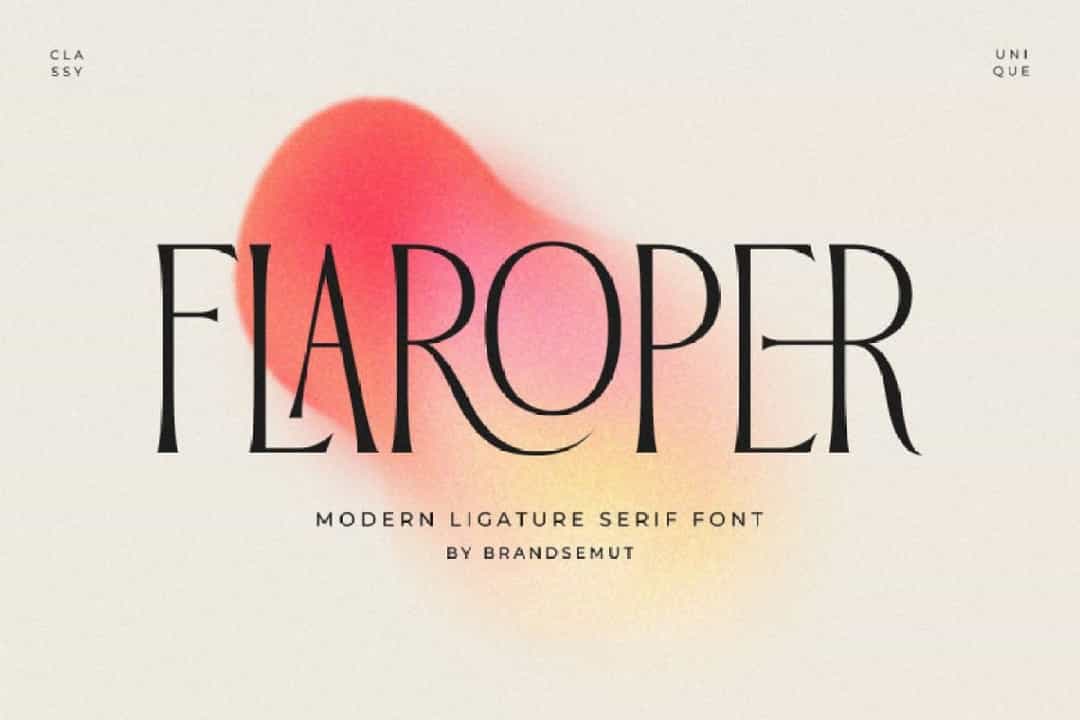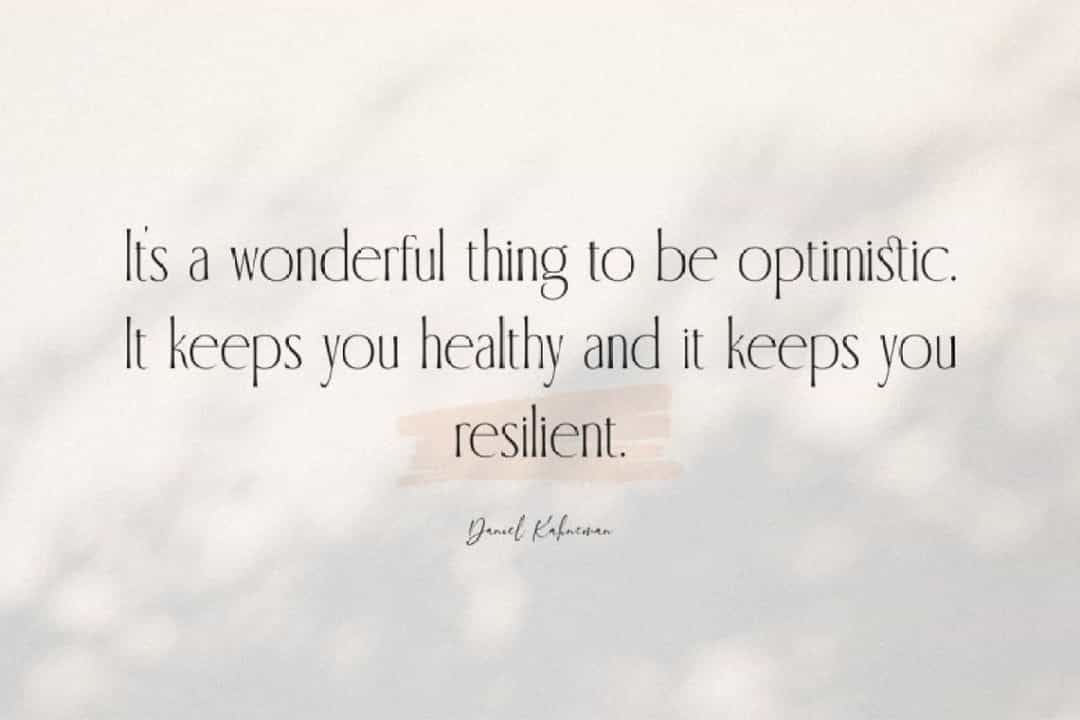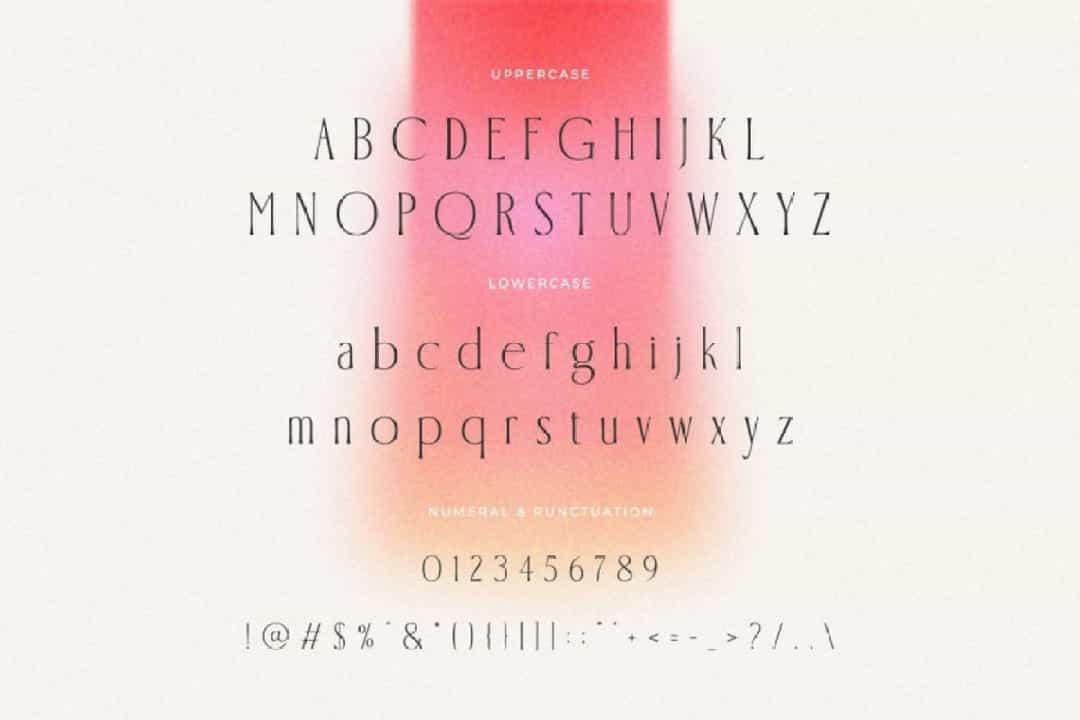
Flaroper is an elegant and modern ligature serif typeface which can be used to display branding, headings, logos magazines packaging for products invitations. Flaroper features sleek lines with smooth curves adding quality.